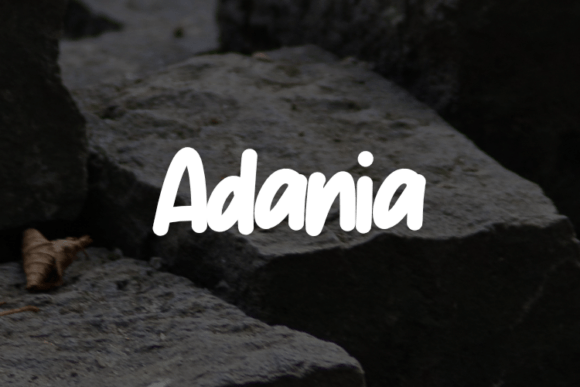
Unlock Your Design Potential with Adania Font
Have you ever been in the middle of a design project, pouring your heart and soul into it, only to hit a roadblock when searching for the perfect font? I recall a particularly frustrating experience when a client’s request for a custom t-shirt design led me on a wild goose chase for a versatile and precise font. That’s when I stumbled upon Adania, a game-changing font that has since become my go-to for various design endeavors.
A Game-Changing Font for Designers
Meet Adania, the versatile font crafted with immaculate precision to accentuate your design endeavors. Surpassing the boundaries of designing, Adania is tailor-made for apparel and product design niches, including clothes, t-shirts, and beyond. Being compatible with all software, this font liberates you from any technical limitations. Provided in an otf file, Adania can elevate your design craftsmanship to staggering heights.
An Honest Review of Adania
What I Love About Adania ✨
- ✅ Precision and Versatility: Adania’s design is meticulously crafted, offering a wide range of applications from apparel to product design.
- ✅ OpenType Features: Adania comes with a range of OpenType features, including glyphs and stylistic alternates, allowing for creative freedom.
While Adania has been a fantastic addition to my design toolkit, there are a few minor considerations:
- 🤔 Learning Curve: If you’re new to using OpenType features or glyphs, there might be a slight learning curve to fully leverage Adania’s capabilities.
- ⚠️ Character Limit: Some users have noted that certain characters may not be immediately available, requiring a deeper dive into the glyphs panel.
The Backstory of Adania
Adania was conceived with the designer in mind, offering a tool that combines precision, versatility, and ease of use. While the font’s exact origins are shrouded in mystery, it’s clear that Adania was crafted to empower designers to push the boundaries of their creativity.